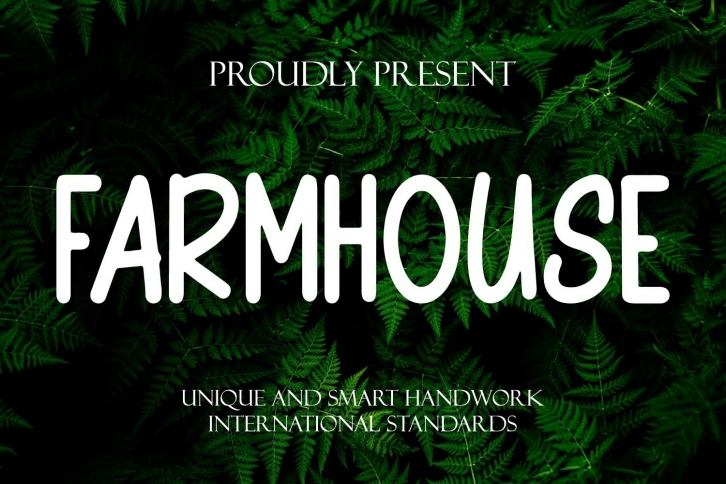
Farmhouse is a trendy and unique font with an authentic style. It was designed by Mahesa Design and it's a great choice for creative people who need such a font. It was released on November 19, 2021 and the file size is 18.63 MB. Farmhouse will add an organic vibe to any design idea!